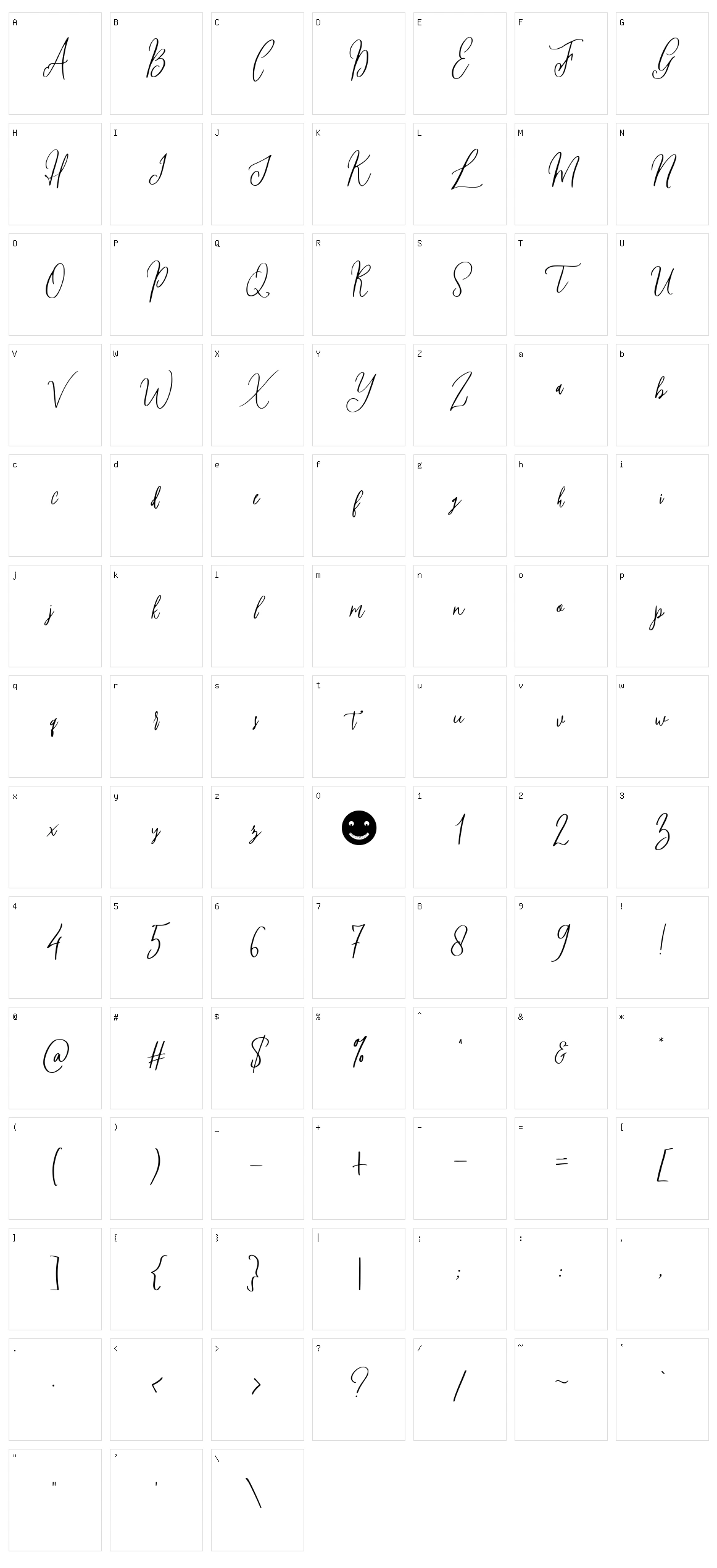
The free font Beconfident is carefully designed by Bonjour Type, showcasing a thoughtful balance of creativity and usability and falls under the Script font style. When you download the ZIP file, it contains only 76.93 KB of font files, making it lightweight and quick to download. Please review the license details below to understand permitted usage and distribution rights. If license information is not available, we recommend using this font for personal projects only or contacting the author directly for commercial usage permissions.